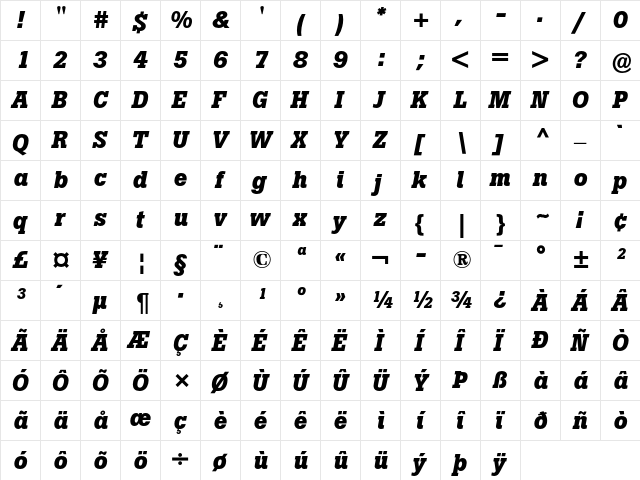
Boton Bold Italic Font Preview
Boton Bold Italic
Design Context for Boton Typeface
Boton is a composed and adaptable typeface that performs quietly and consistently across a wide range of design contexts. Its italic angle brings a sense of urgency and motion to the letterforms. Its bold stroke weight gives it real presence on the page.
Pro Tip: Use Boton for emphasis, pull quotes, and subheadings where its slanted energy can add rhythm to the layout.